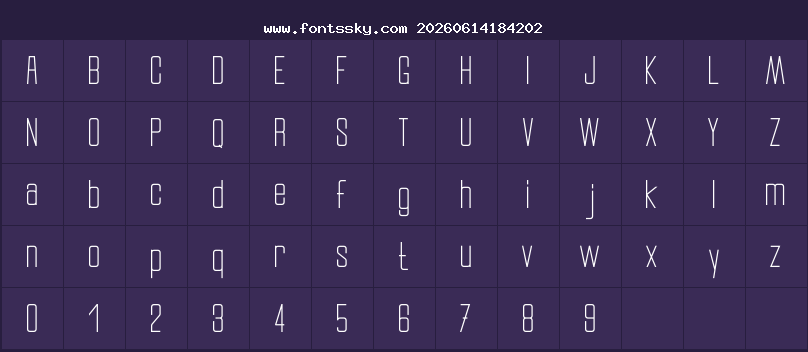
Slender Normal Preview
• Font Name: Slender Normal
• Full Font Name: Slender Normal
About Slender Normal.otf
Slender Normal.otf is a modern, elegant sans-serif font designed for ultimate readability and visual harmony. Perfect for branding, headlines, web design, and print materials.